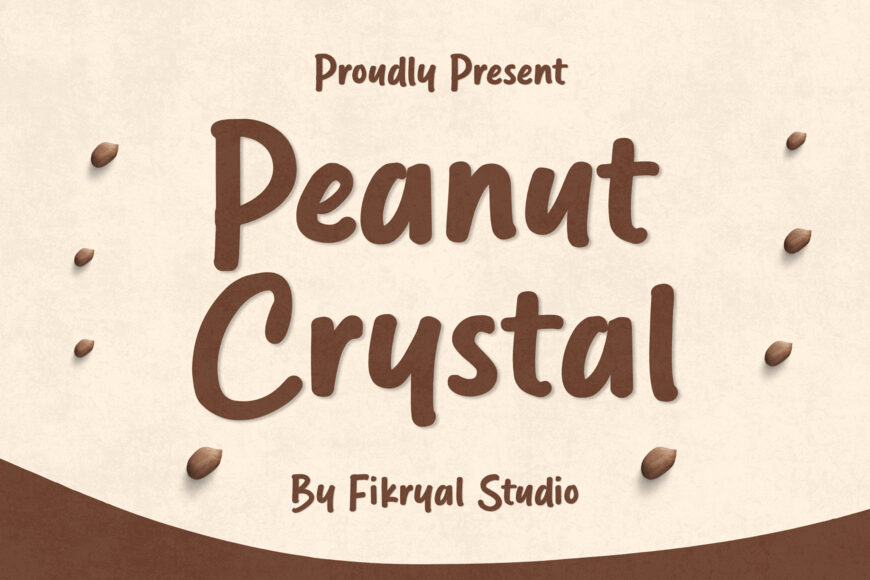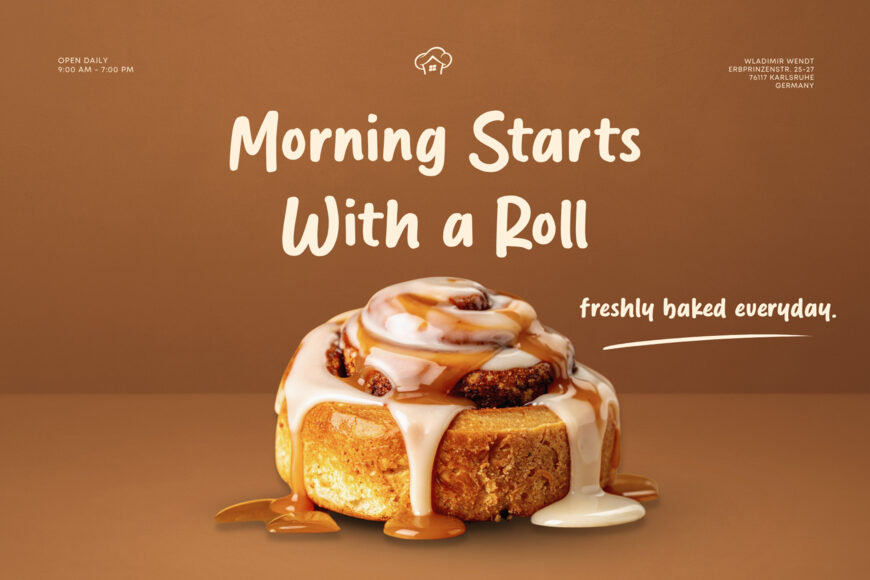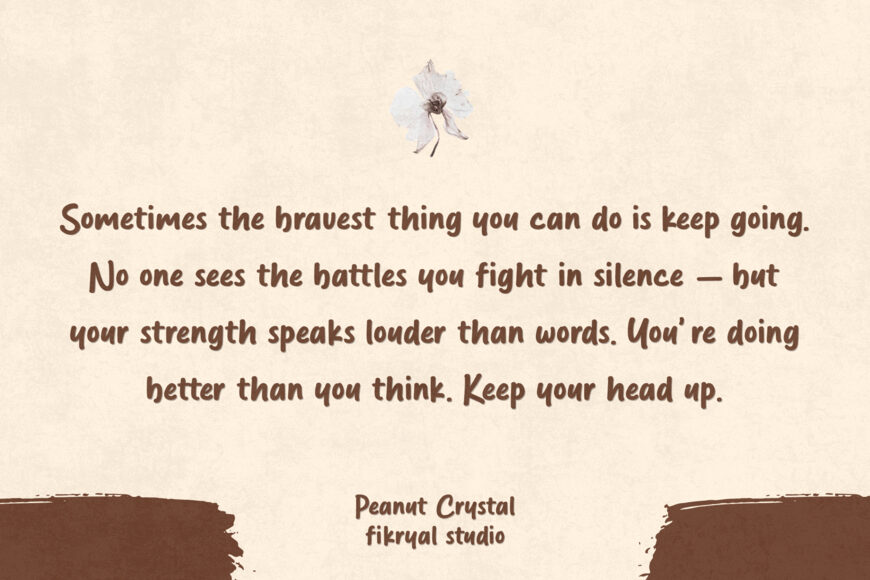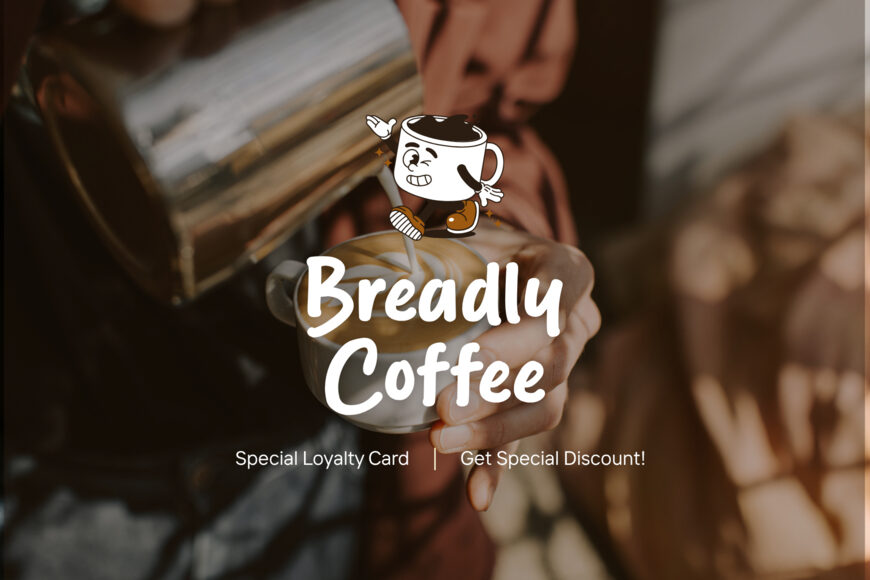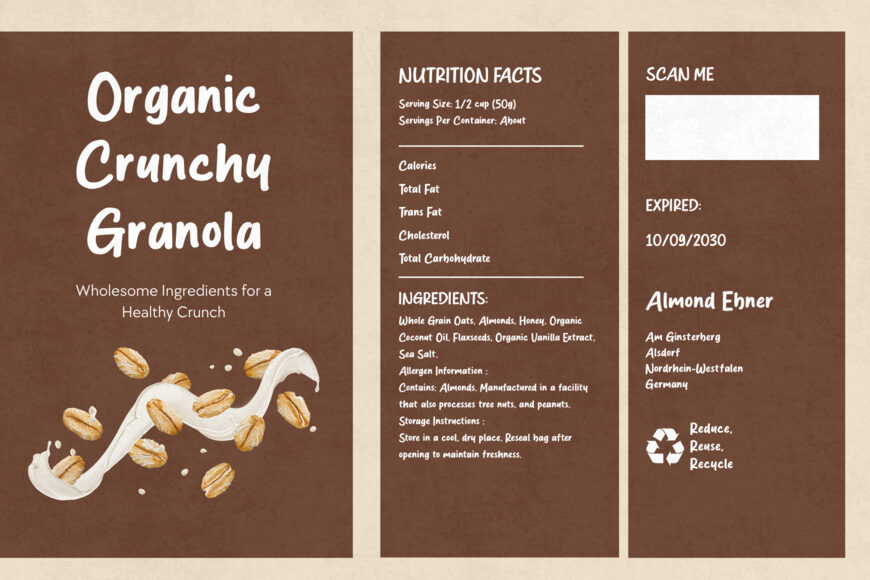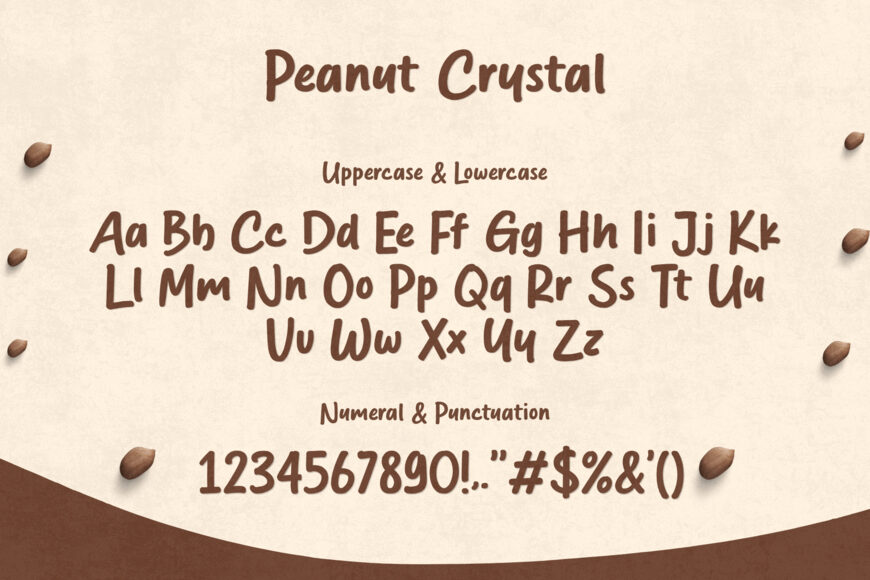
Peanut Crystal Font
Peanut Crystal is a charming and expressive handwritten font designed to bring a natural, personal, and playful touch to your creative projects. With its smooth handwritten strokes and unique character, Peanut Crystal delivers an authentic handwritten look while remaining clear, stylish, and easy to use.
This font is perfect for designers, creators, brands, and anyone looking to add a warm and distinctive personality to their typography. Peanut Crystal works beautifully across a wide range of creative projects, from branding and packaging to social media content and eye-catching quotes.